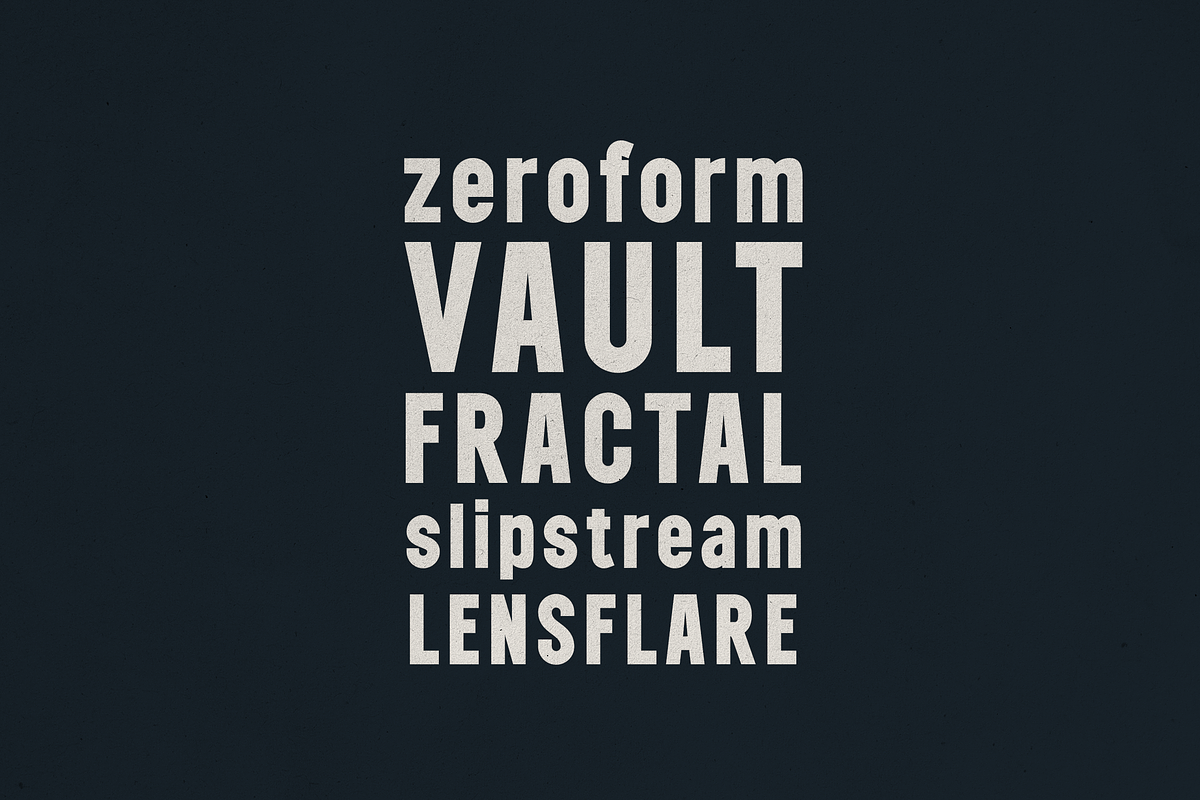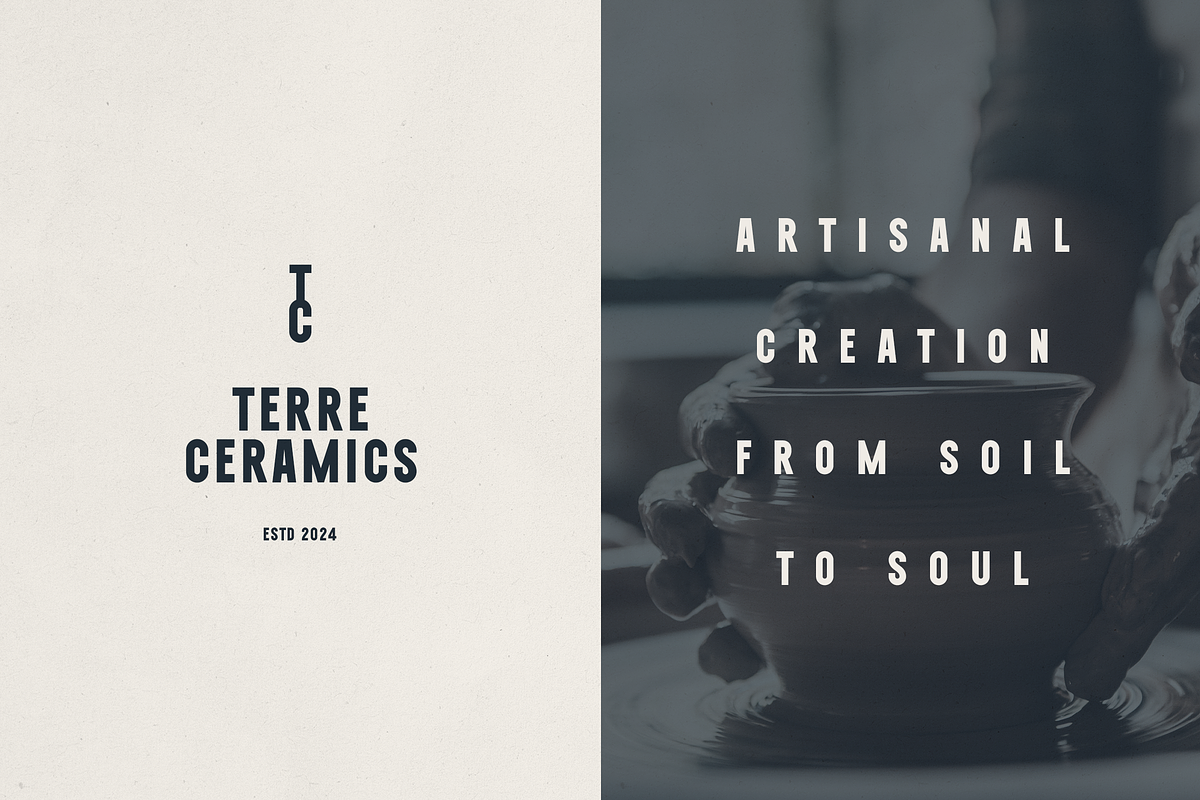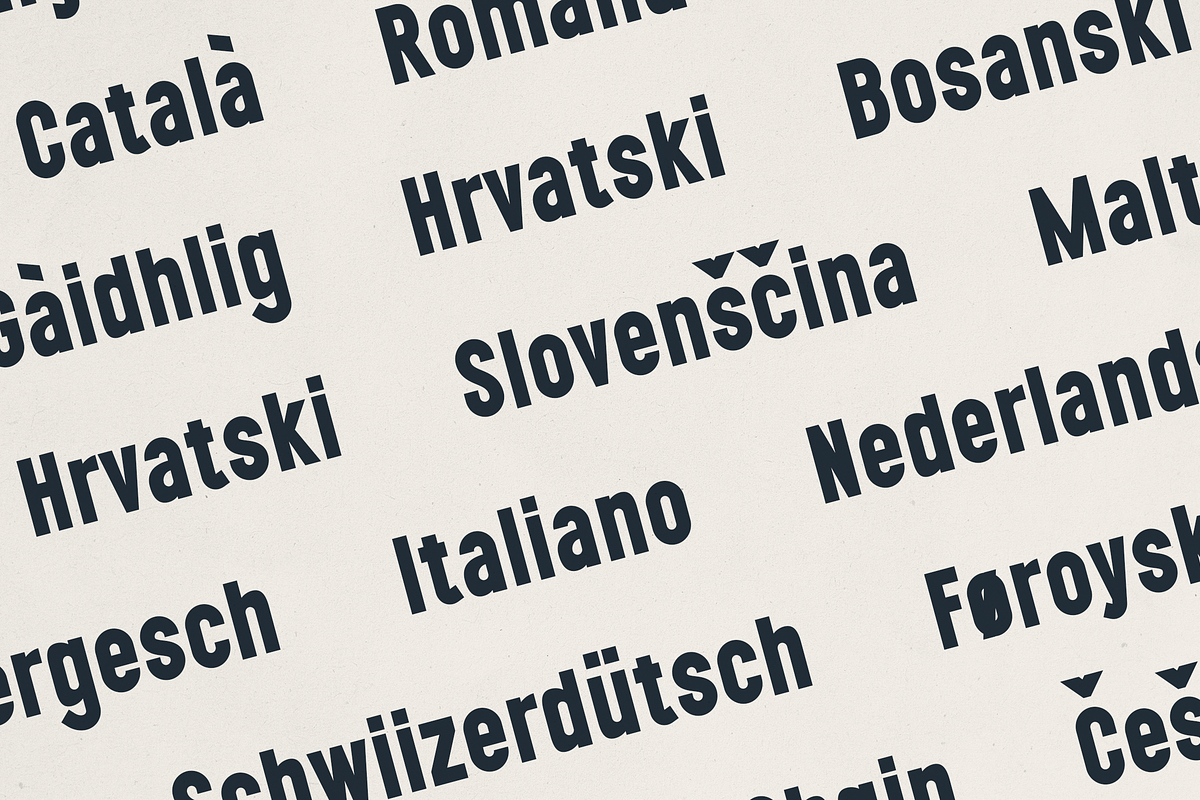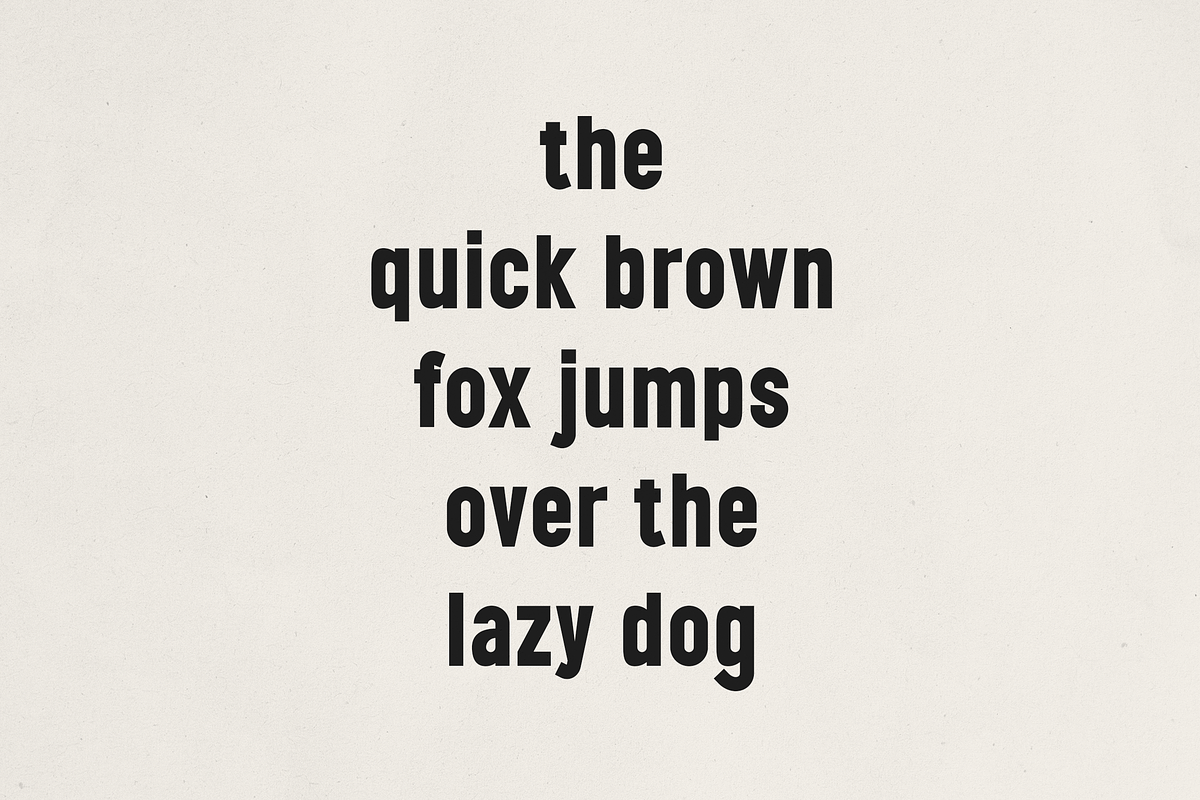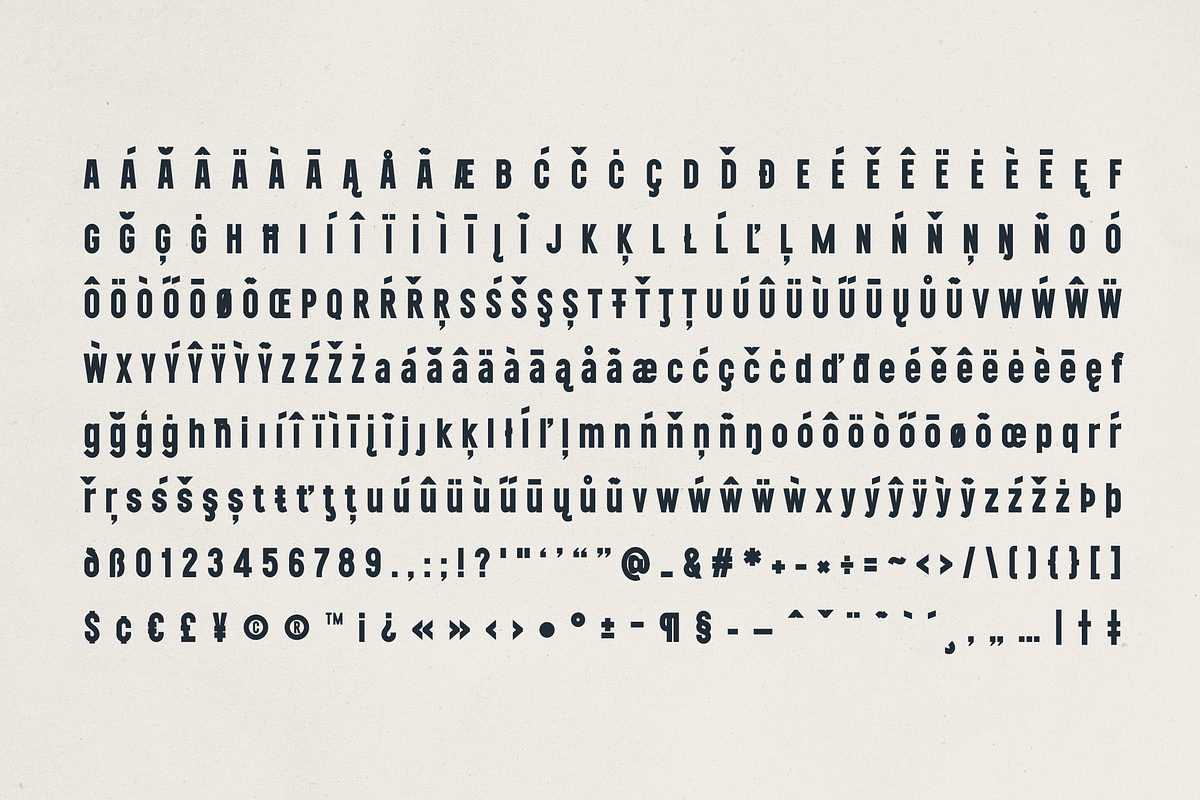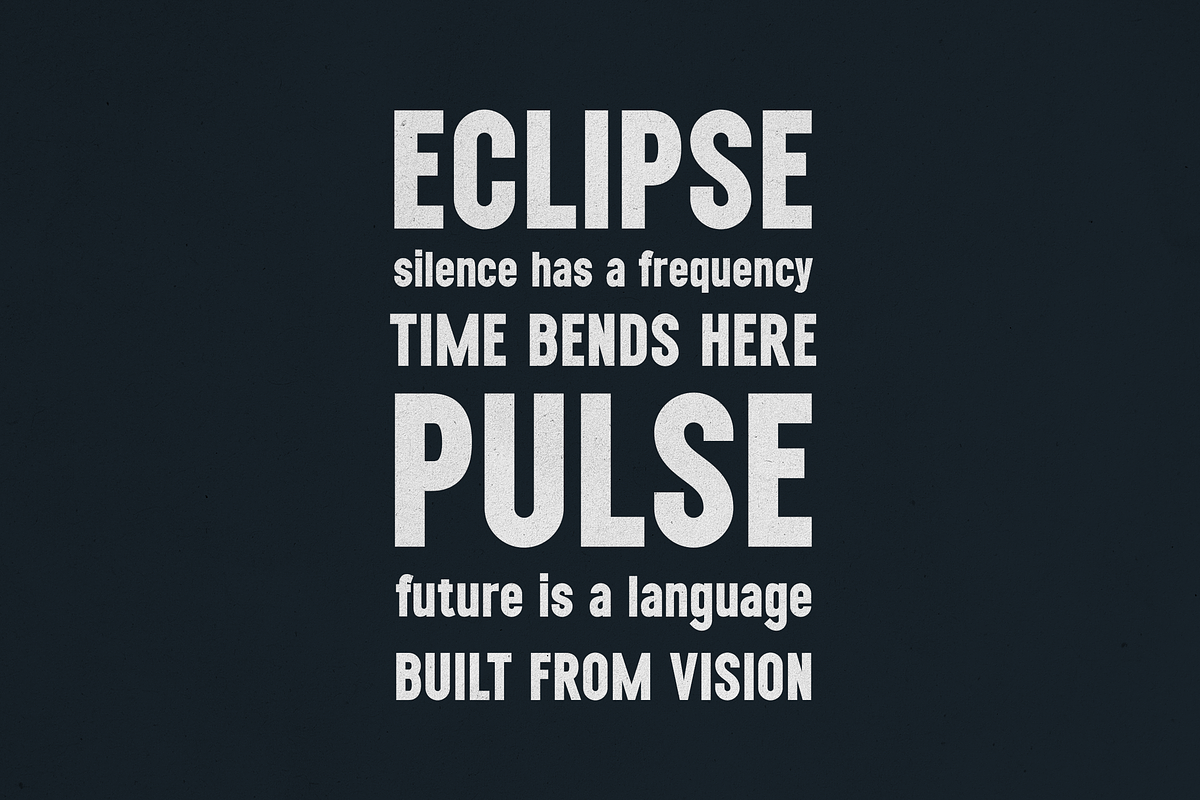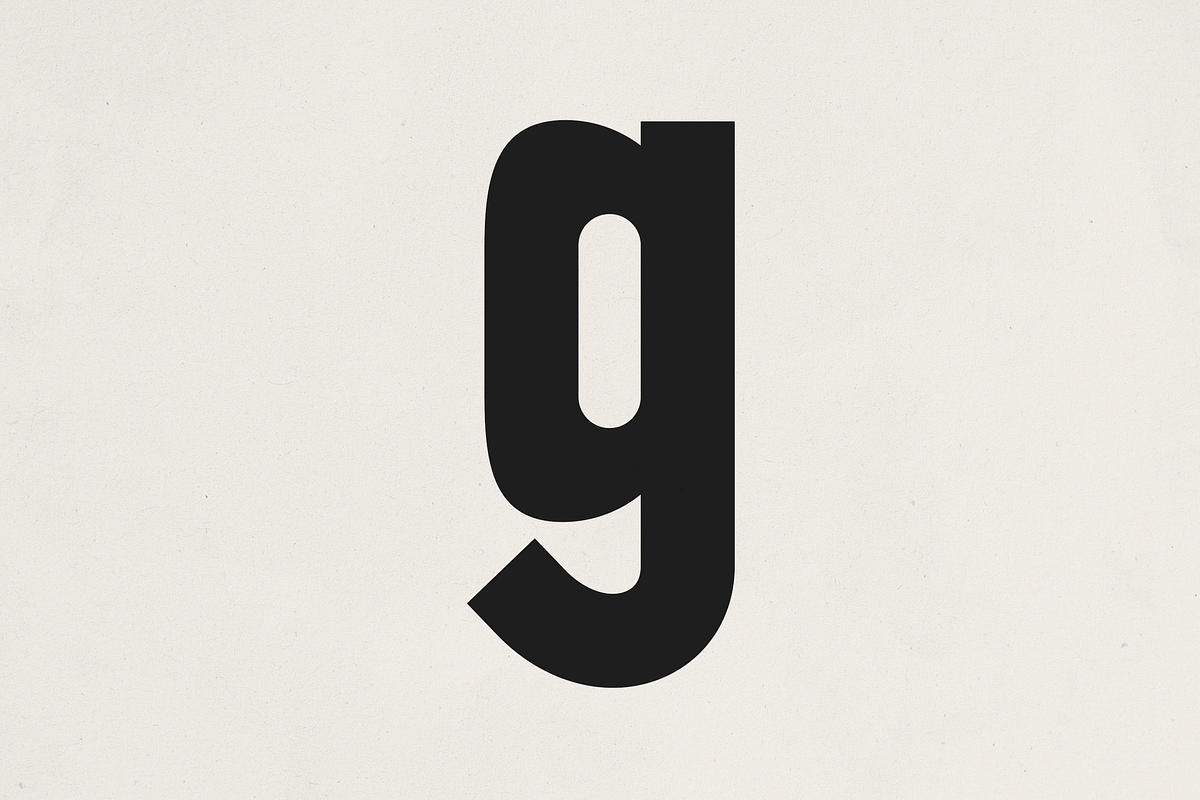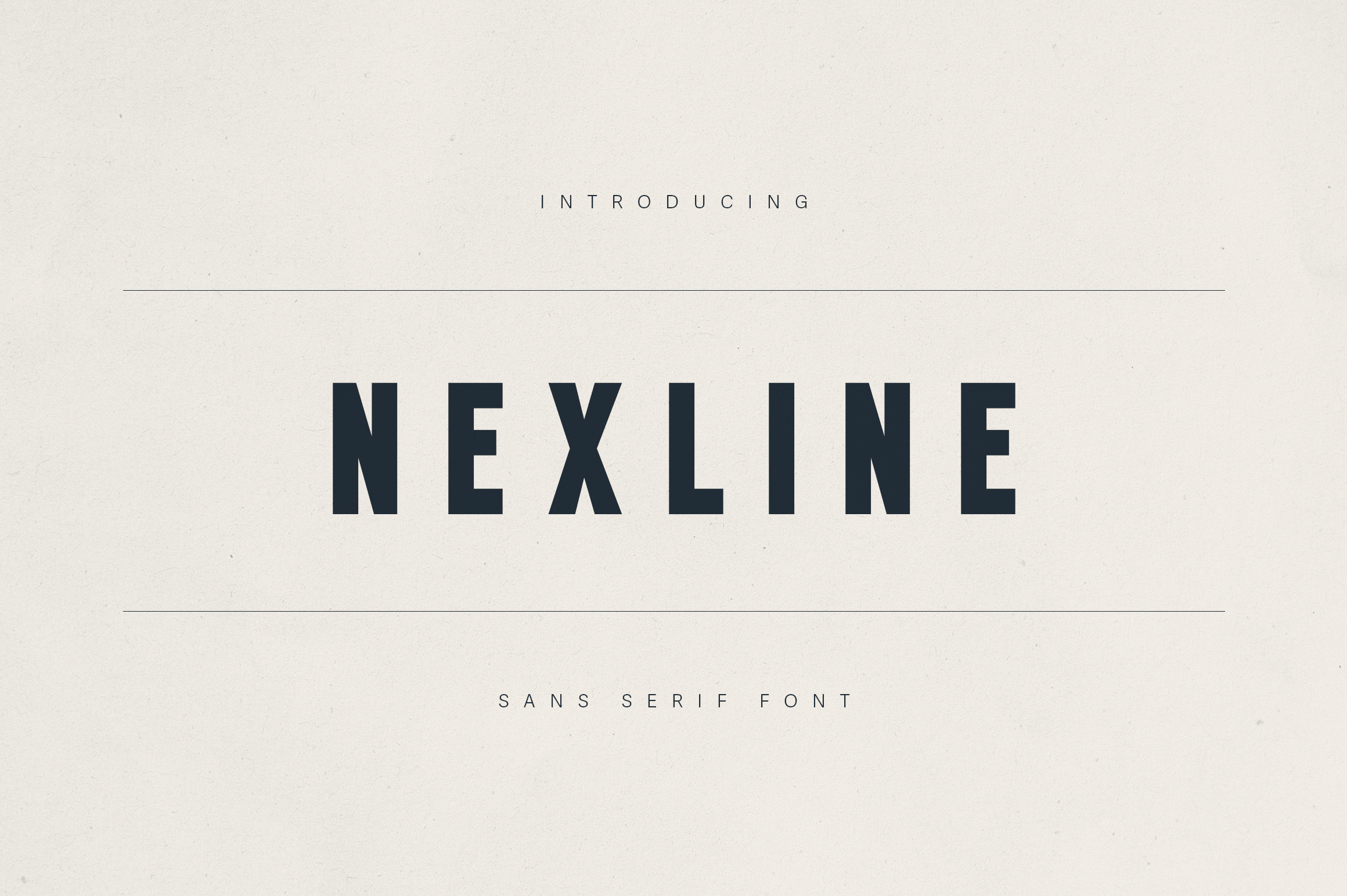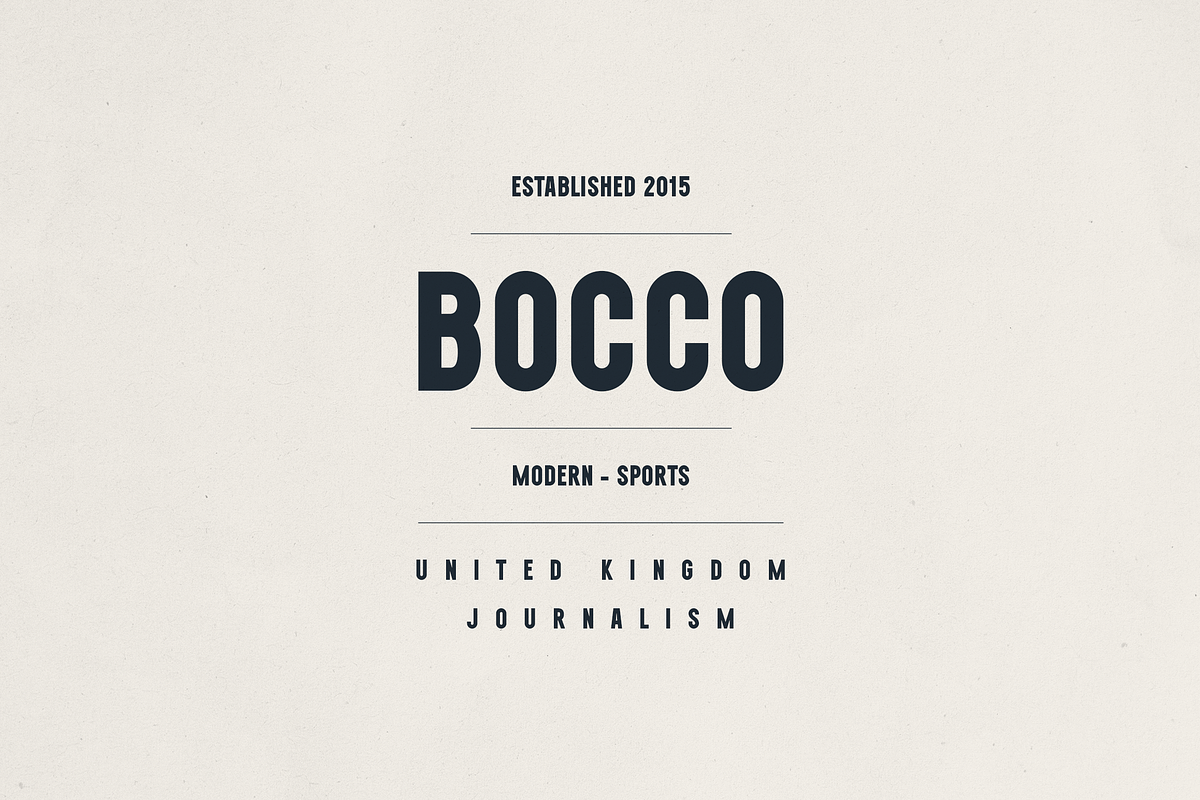
Nexline – Bold Sans Serif Font
Nexline – Bold Sans Serif Font for Modern Branding & Editorial Design
Nexline is a bold sans serif typeface crafted for maximum impact and effortless readability. Its strong geometric structure, clean lines, and condensed letterforms make it an ideal choice for headlines, logos, posters, editorial layouts, and brand identities. With a versatile balance of vintage charm and modern simplicity, Nexline adds a powerful visual presence to any design.
Perfectly suited for creative agencies, fashion brands, ceramic studios, and lifestyle products, Nexline includes uppercase and lowercase letters, multilingual support for over 80 languages, numerals and punctuation. Whether you're creating artisanal packaging, urban event posters, or sleek corporate branding, Nexline delivers a confident and contemporary tone.
- All caps & lowercase characters
- Multilingual support (including extended Latin glyphs)
- Punctuation & symbols
- Clean modern aesthetics with a touch of retro boldness
- Perfect for branding, editorial, product design, posters, signage, and more